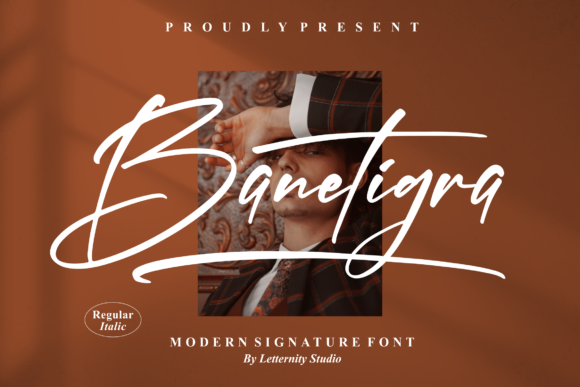
The Perfect Brushstroke: Introducing Banetigra Font
Have you ever been working on a design project, and the right font just seems to be missing? The words on the page feel flat, the message isn’t quite getting across, and you’re left wondering what’s missing? For many designers, that elusive touch of personality can be the difference between a design that’s merely good and one that’s truly great.
Enter Banetigra Font, a sweet and cursive handwritten font that’s designed to add a touch of whimsy and romance to any project. With its gentle brushstrokes and playful flair, Banetigra Font is the perfect addition to any design that needs a little extra charm.
Whether you’re working on a wedding invitation, a children’s book, or a romantic greeting card, Banetigra Font is a valuable tool in your design arsenal. Its versatility and charm make it a go-to choice for designers who want to add a little extra magic to their projects.
Banetigra Font Key Features
- Unique Characteristics: Unique blend of modern and vintage elements, suitable for various design projects, including logos, branding, and packaging
- Font Styles: Regular, Bold, Italic, Bold Italic
- Language Support: Multilingual support for over 200 languages, including Latin, Cyrillic, and Greek scripts
Banetigra Font Review
As a designer, I was excited to try out the Banetigra font, and I must say it has some great qualities. Here’s my honest review:
- The Banetigra font has a unique, handwritten feel that adds a touch of personality to any design.
- It’s highly legible, making it perfect for body text and longer pieces of content.
- The font’s subtle irregularities give it a natural, hand-drawn look that’s hard to replicate with digital tools.
- The font’s uppercase letters can be a bit awkward to read, especially in smaller sizes.
- The font’s irregularities can sometimes make it difficult to pair with other fonts, as it may clash with more traditional, serif fonts.
Overall, I think the Banetigra font is a great addition to any designer’s toolkit. While it may have some limitations, its unique personality and legibility make it a great choice for designers looking to add some flair to their designs. With a bit of careful pairing and sizing, the Banetigra font can be a real showstopper.
Tips for Getting the Most Out of Banetigra Font
For best results, use Banetigra Font in combination with bold or italic styles to add emphasis and create visual interest. You can also experiment with different font sizes and colors to create a unique look.
Banetigra Font is ideal for use in creative projects, such as graphic design, digital art, and typography. It’s also great for use in branding and marketing materials, such as logos, business cards, and brochures.
Alternatives to Banetigra Font
Great Vibes Font is a beautiful, elegant script font perfect for creating a sense of luxury and sophistication. It’s ideal for use in high-end branding, invitations, and other formal designs. Great Vibes Font has a more refined and polished look compared to Banetigra Font, making it a great choice for designers who want to create a more refined aesthetic.
Pacifico Font is a modern script font that’s perfect for creating a sense of relaxation and calmness. It’s ideal for use in branding, packaging, and other designs where a laid-back vibe is desired. Pacifico Font has a more casual and friendly look compared to Banetigra Font, making it a great choice for designers who want to create a more approachable aesthetic.
Carolyna Pro Font is a elegant and sophisticated script font perfect for creating a sense of luxury and refinement. It’s ideal for use in high-end branding, invitations, and other formal designs. Carolyna Pro Font has a more refined and polished look compared to Banetigra Font, with a more subtle and understated aesthetic.